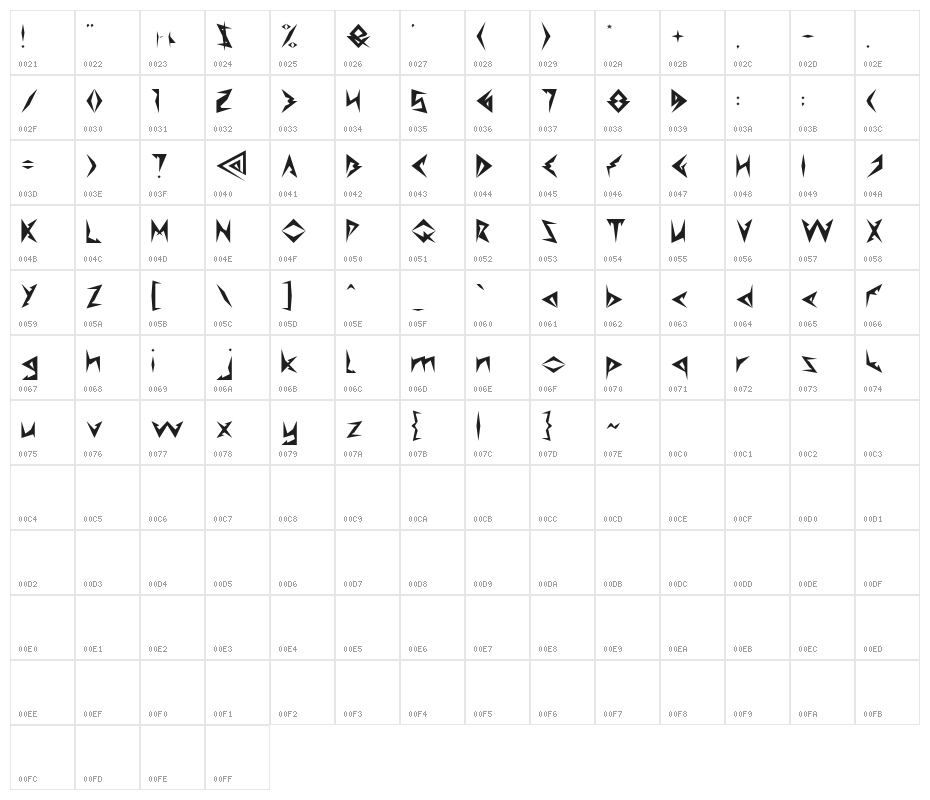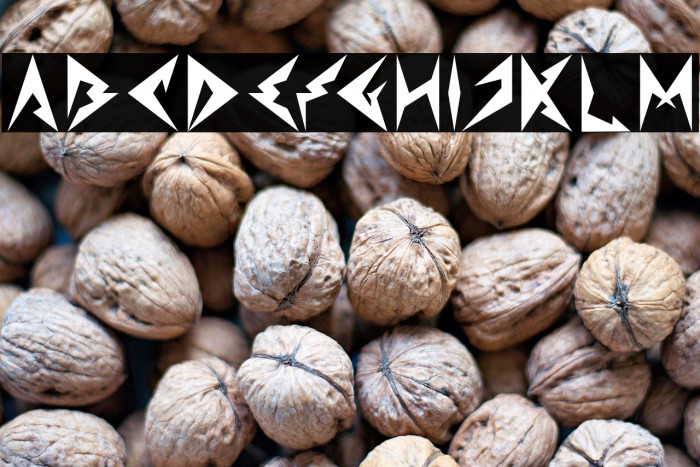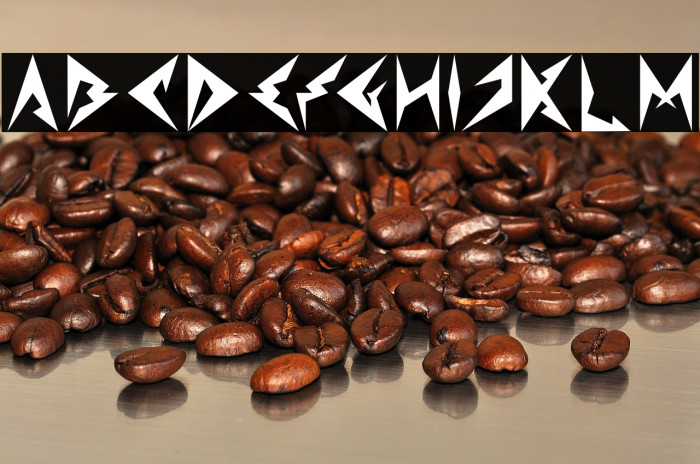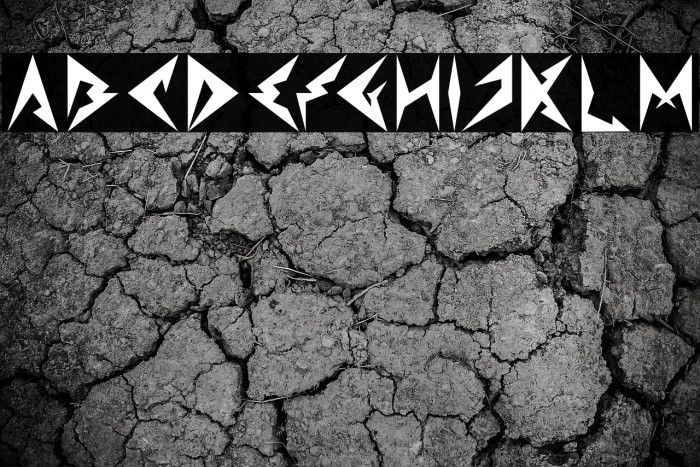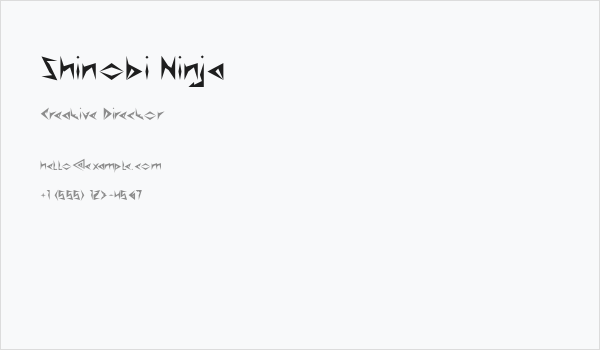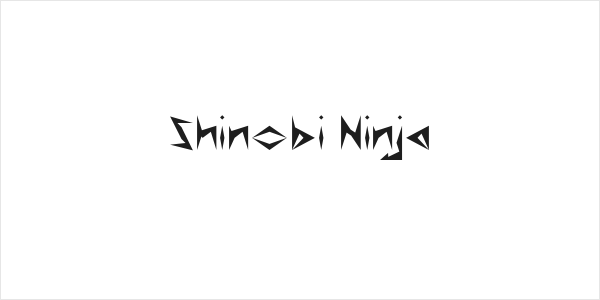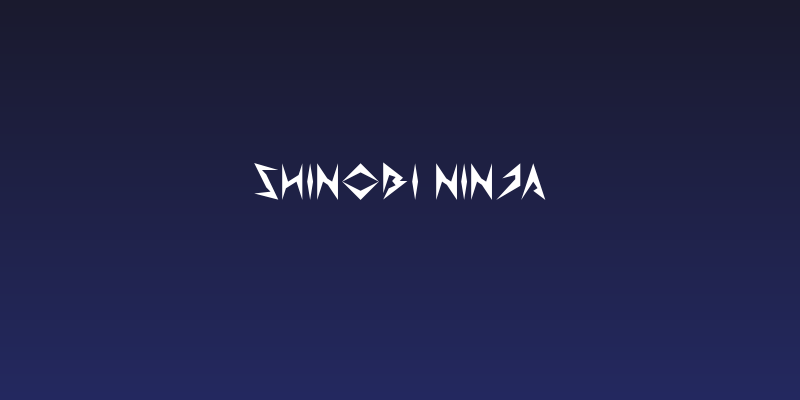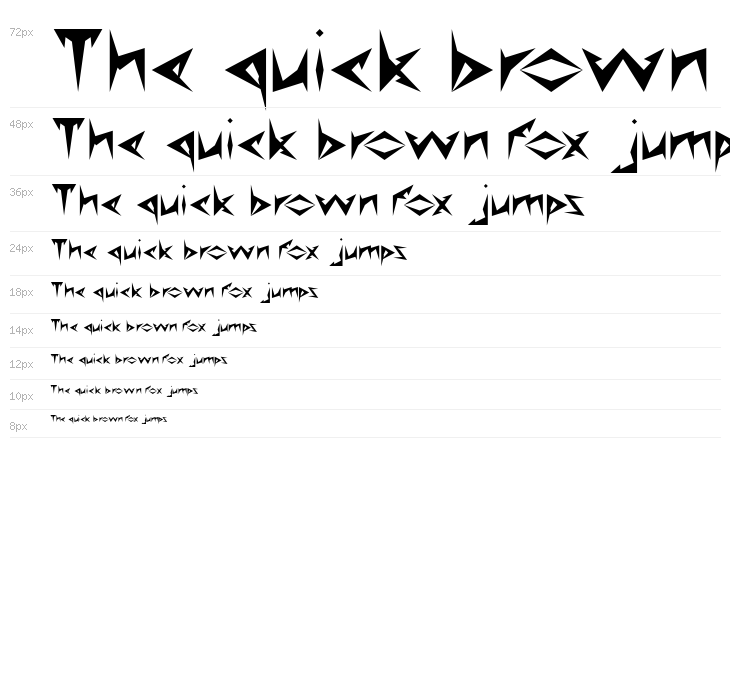
Shinobi Ninja Font
Shinobi Ninja Description
This font features a bold and dynamic design with sharp, angular edges and a distinctly geometric style. Each character is crafted with a series of pointed and intersecting lines, creating a sense of movement and energy. The uppercase and lowercase letters maintain a consistent aesthetic, with a unique flair that makes each letter stand out. Numbers and special characters follow the same design principles, ensuring a cohesive look across all text elements. The font's aggressive and edgy appearance makes it ideal for projects that require a strong visual impact.
| Overall Style | Modern, Edgy |
| Proposed Projects | Ideal for video game titles, action movie posters, music album covers, and edgy branding projects. |